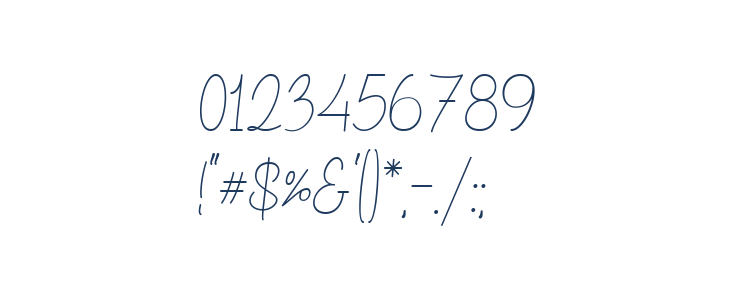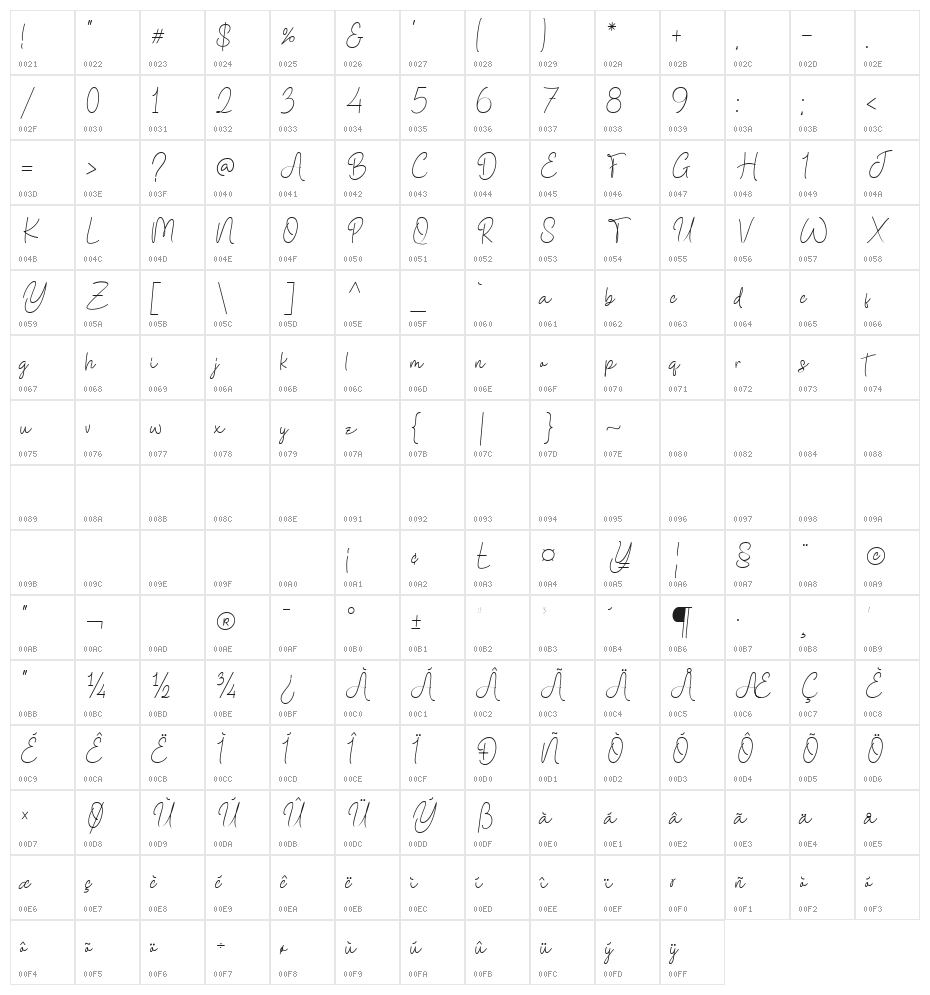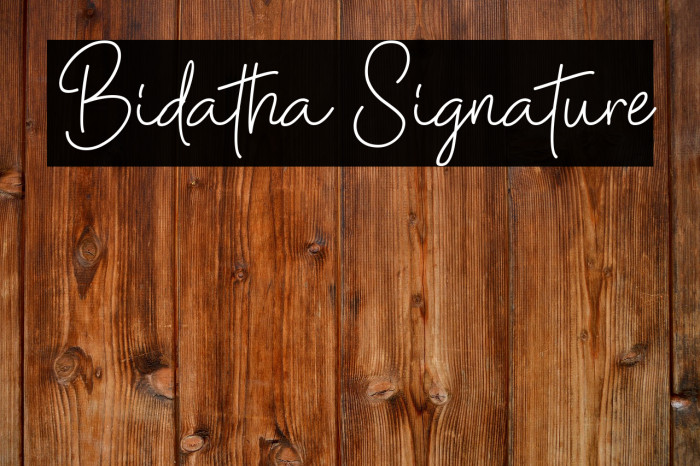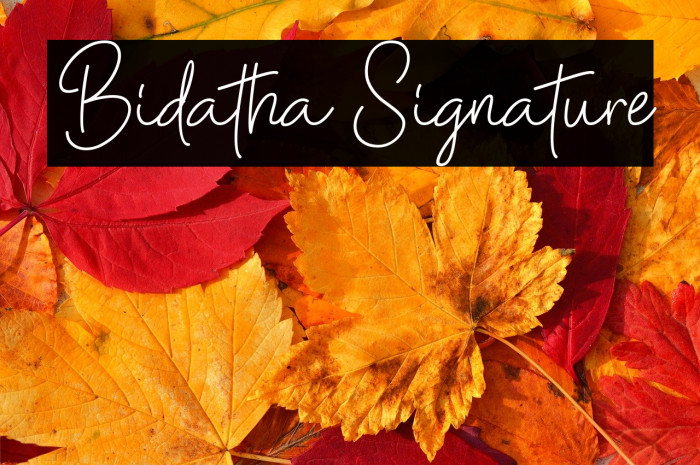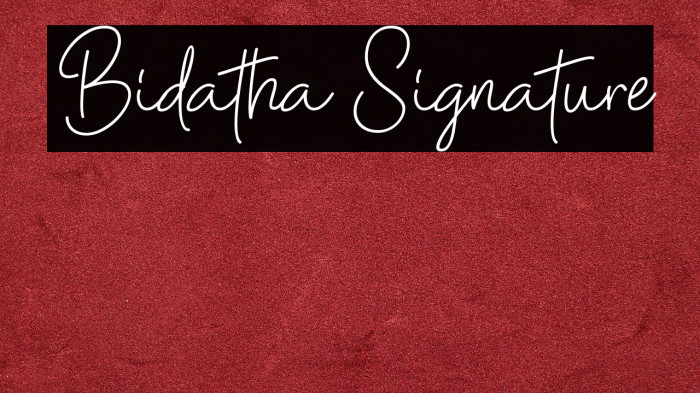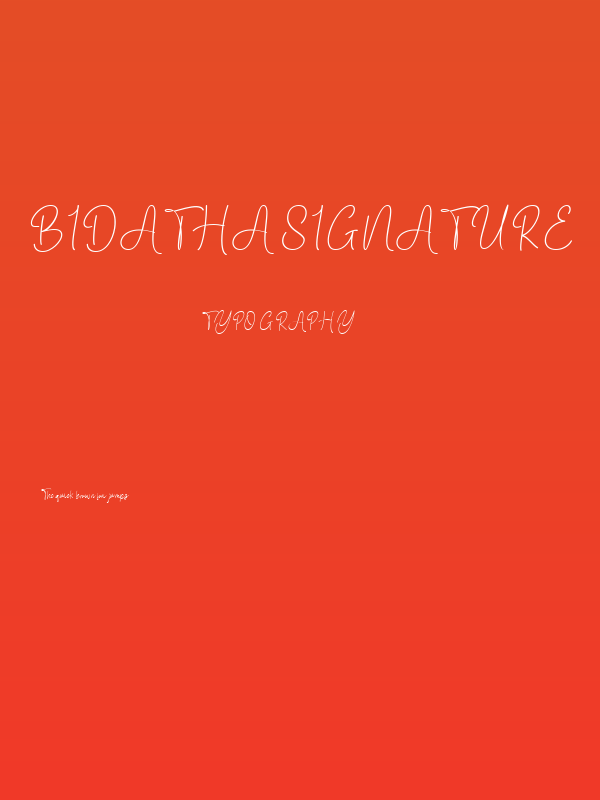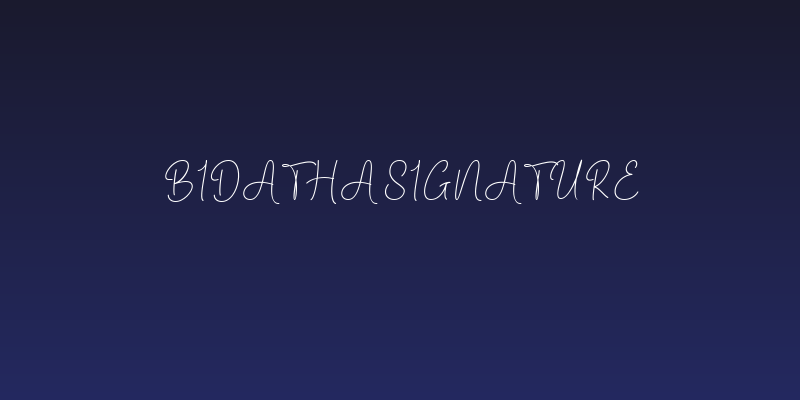
Bidatha Signature Font
Bidatha Signature Description
This font exudes a sophisticated and elegant handwritten style, characterized by its flowing and connected letterforms. The uppercase letters are tall and graceful, while the lowercase letters maintain a consistent fluidity, enhancing the script-like appearance. The numerals are clear and legible, matching the overall aesthetic with their smooth curves. Special characters are seamlessly integrated, maintaining the font's cohesive look. The thin strokes and gentle curves contribute to its refined and delicate appearance, making it ideal for projects that require a personal and artistic touch.
| Overall Style | Elegant |
| Use Case | Logos, Invitations, Personal Branding |
| Proposed Projects | Ideal for wedding invitations, personal branding, greeting cards, and elegant packaging designs. |